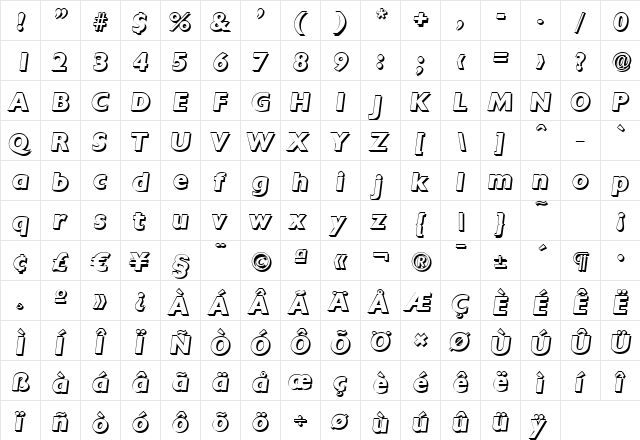
DavidBeckerShadow-ExtraBold Italic Font Preview
Design Context for DavidBeckerShadow-ExtraBold Typeface
DavidBeckerShadow-ExtraBold brings ornamental detail and strong personality to headlines and identities, where visual impact matters more than quiet functionality. The slanted form adds forward momentum and visual energy. Its bold stroke weight gives it real presence on the page.
Font Pairing: Pair with a clean neutral sans-serif for body copy to let DavidBeckerShadow-ExtraBold's character lead without overwhelming the composition.
Pro Tip: Treat DavidBeckerShadow-ExtraBold as the centrepiece of your typographic hierarchy. One strong heading set in a decorative face can carry an entire layout.